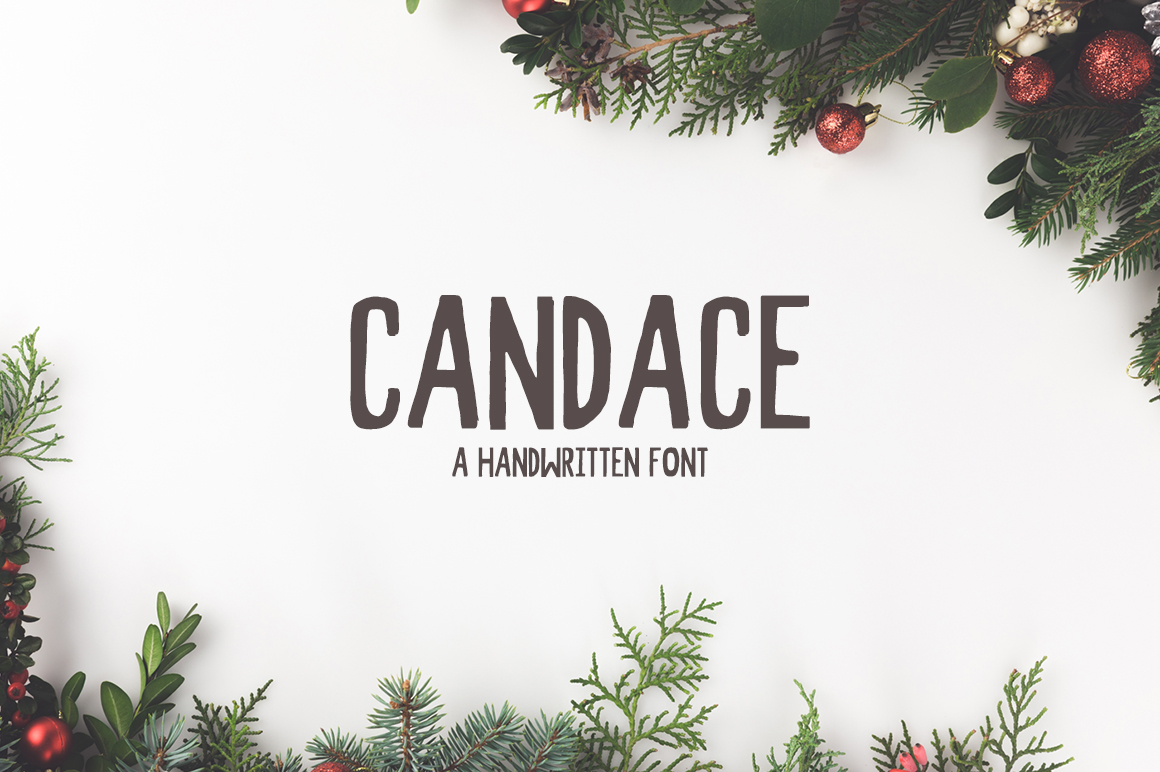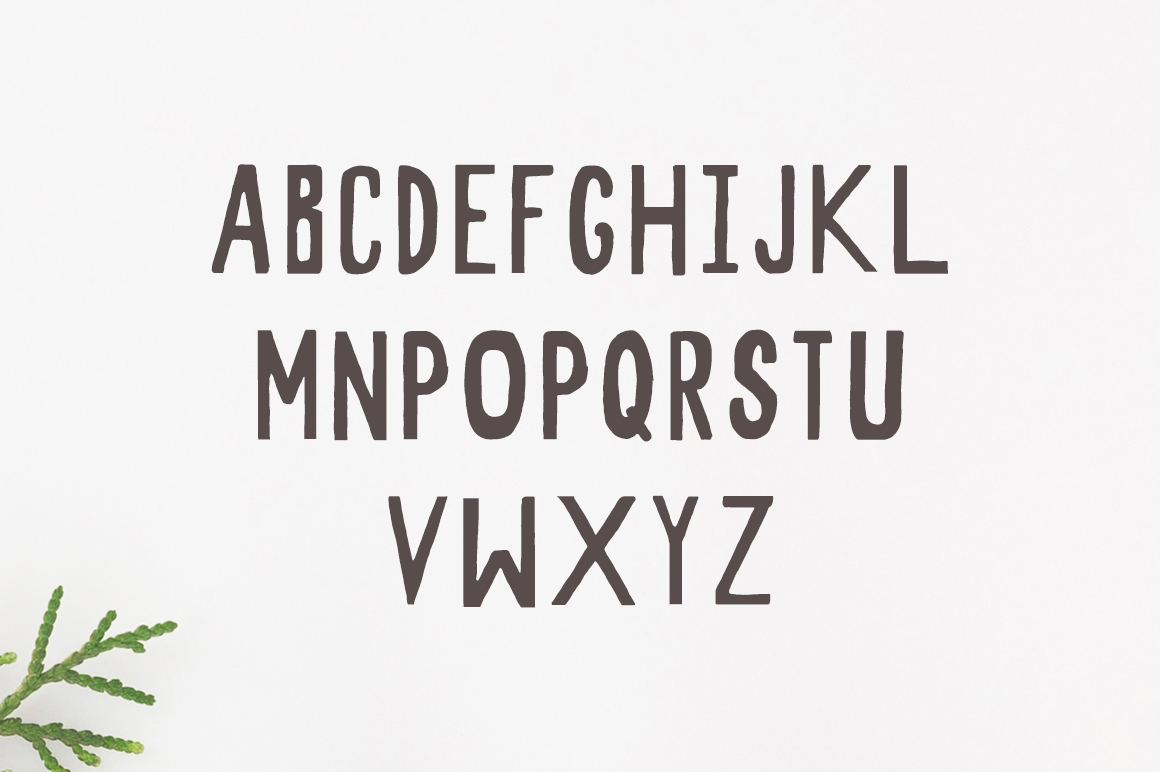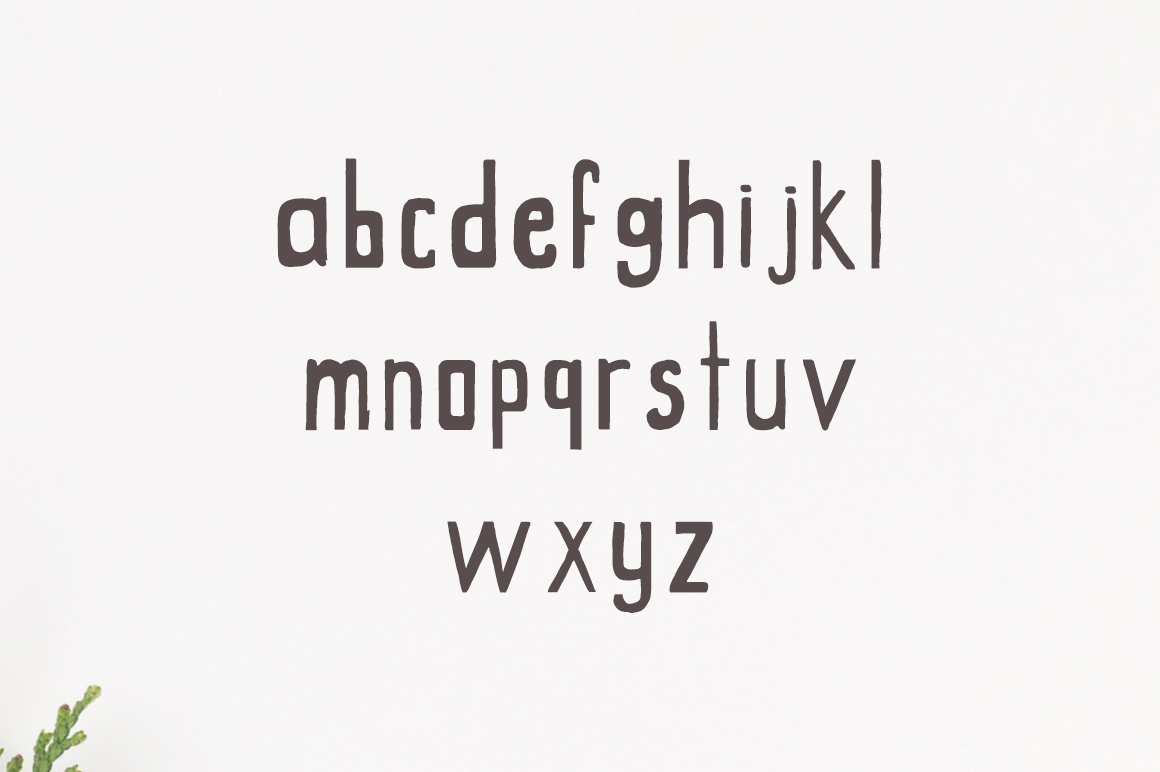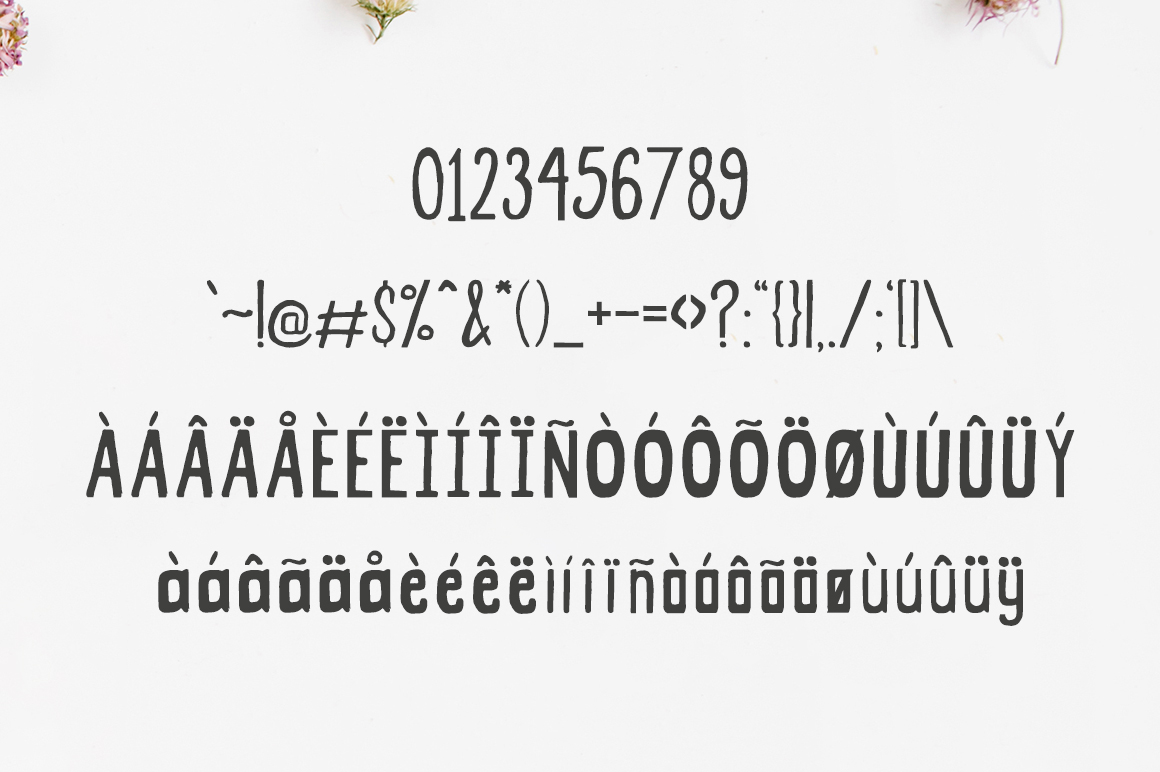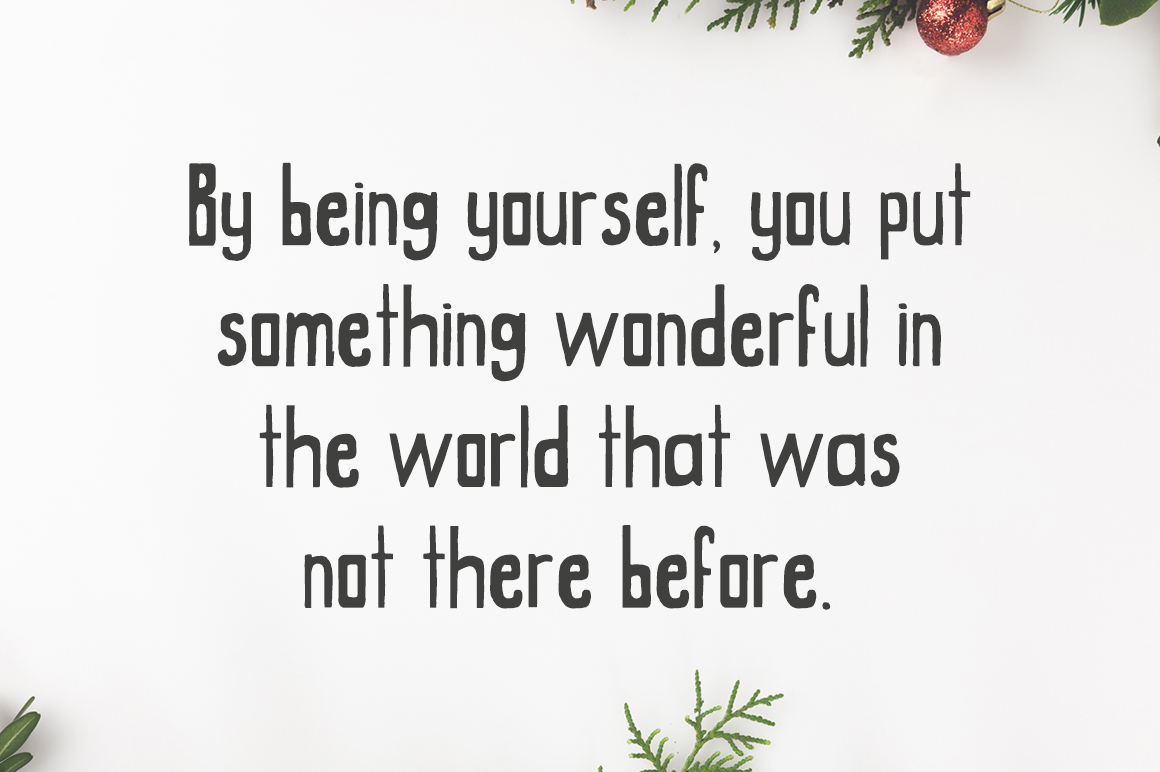
Candace Font
About Candace Font
Candace is a modish, organic, and bold handwritten font. Great for displays and in accompaniment with other fonts, Candace is a wonderfully diverse handwritten script.